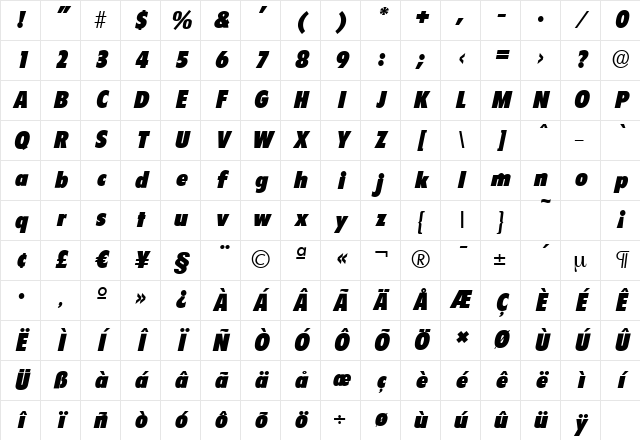
Complete FloridaSerial-Black Italic glyph index. Displaying only characters natively supported by FloridaSerial-Black Italic font.
FloridaSerial-Black is a composed and adaptable typeface that performs quietly and consistently across a wide range of design contexts. The slanted form adds forward momentum and visual energy.
Pro Tip: Use FloridaSerial-Black for emphasis, pull quotes, and subheadings where its slanted energy can add rhythm to the layout.